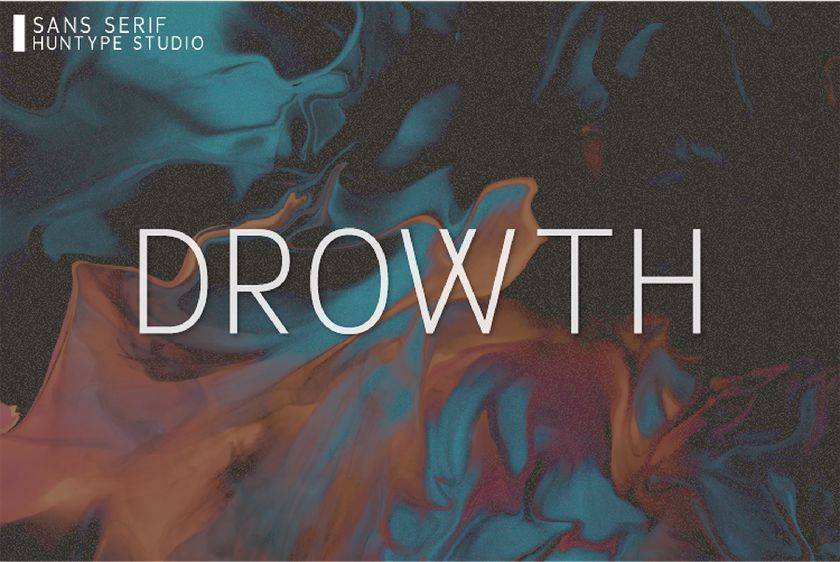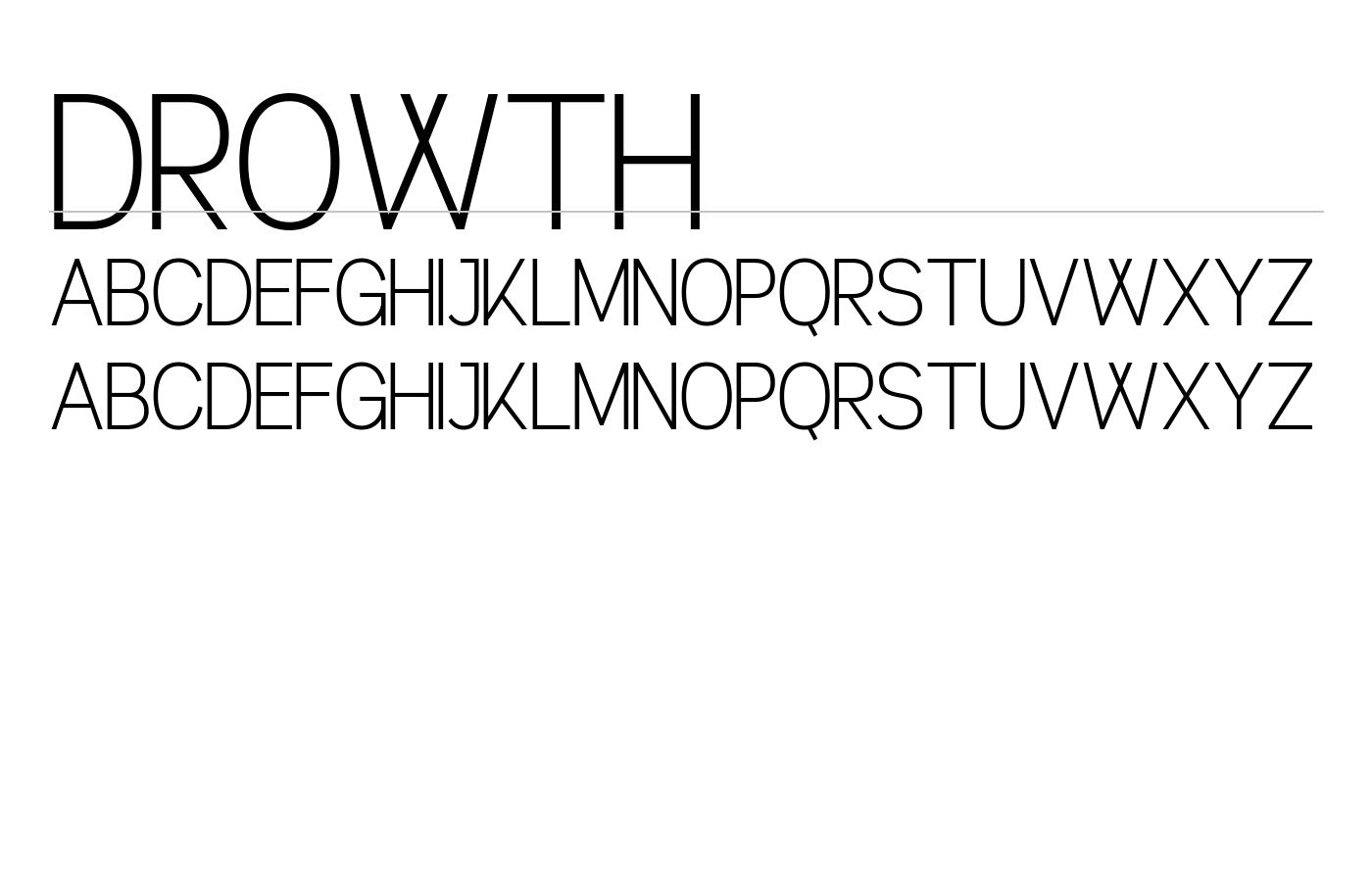
Drowth is a sleek, modern sans serif font characterized by its thin, elongated letterforms and delicate strokes. Its narrow width and high x-height give it a refined, elegant appearance, making it ideal for contemporary branding, editorial headlines, and stylish web design where a minimalist and sophisticated aesthetic is desired.
Drowth Font